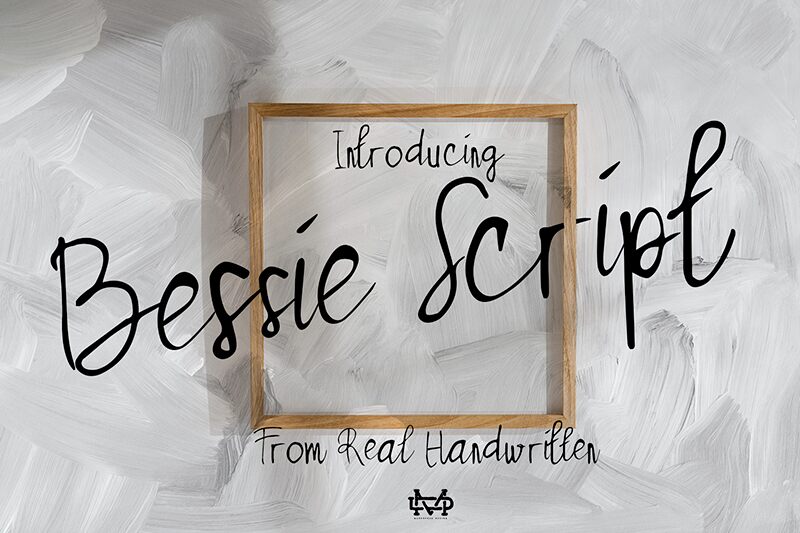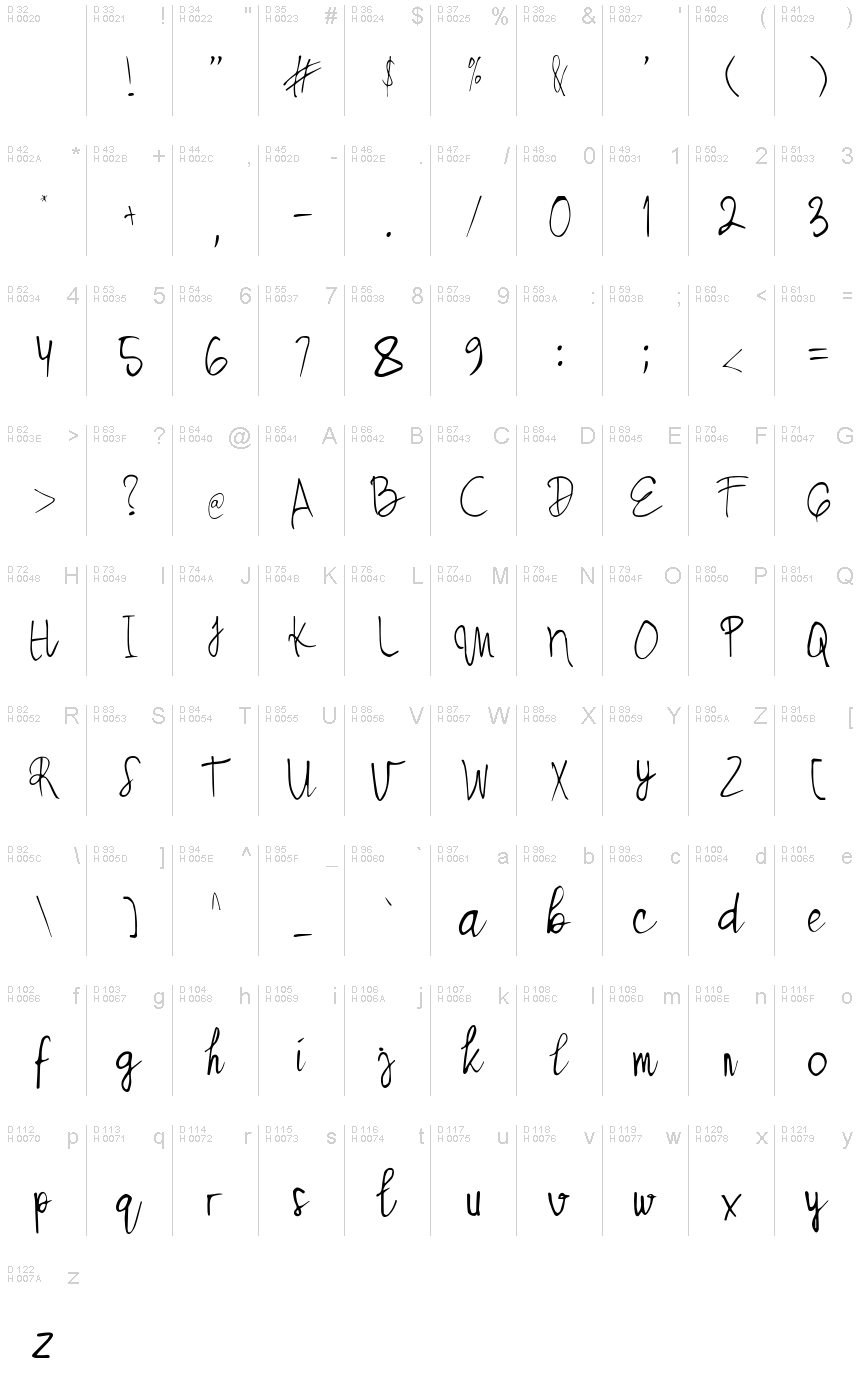
Bessie Demo
Bessie, a captivating handwritten font crafted by madeDeduk, exudes an effortless charm that instantly captivates the eye. With its organic, flowing strokes and delicate inconsistencies, this font embodies a sense of natural elegance, evoking feelings of warmth and authenticity. The playful yet refined character of Bessie make it a versatile choice for a wide range of design applications, from editorial layouts and branding materials to stationery and invitations.
This font's unique characteristics lend themselves particularly well to projects seeking a personalized, handcrafted aesthetic. Bessie's calligraphic flair and expressive nuances add a touch of personality and character, making it an ideal selection for projects that aim to convey a sense of individuality, artistry, or personal touch.